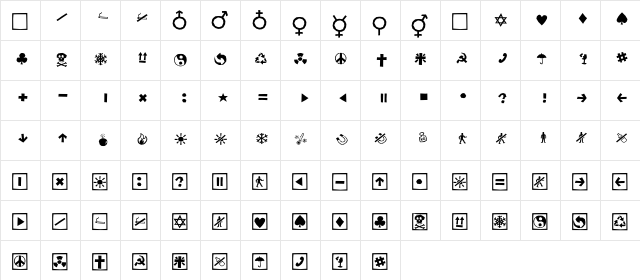
AleSignsLL Regular
Design Context for AleSignsLL Typeface
AleSignsLL is a composed and adaptable typeface that performs quietly and consistently across a wide range of design contexts.